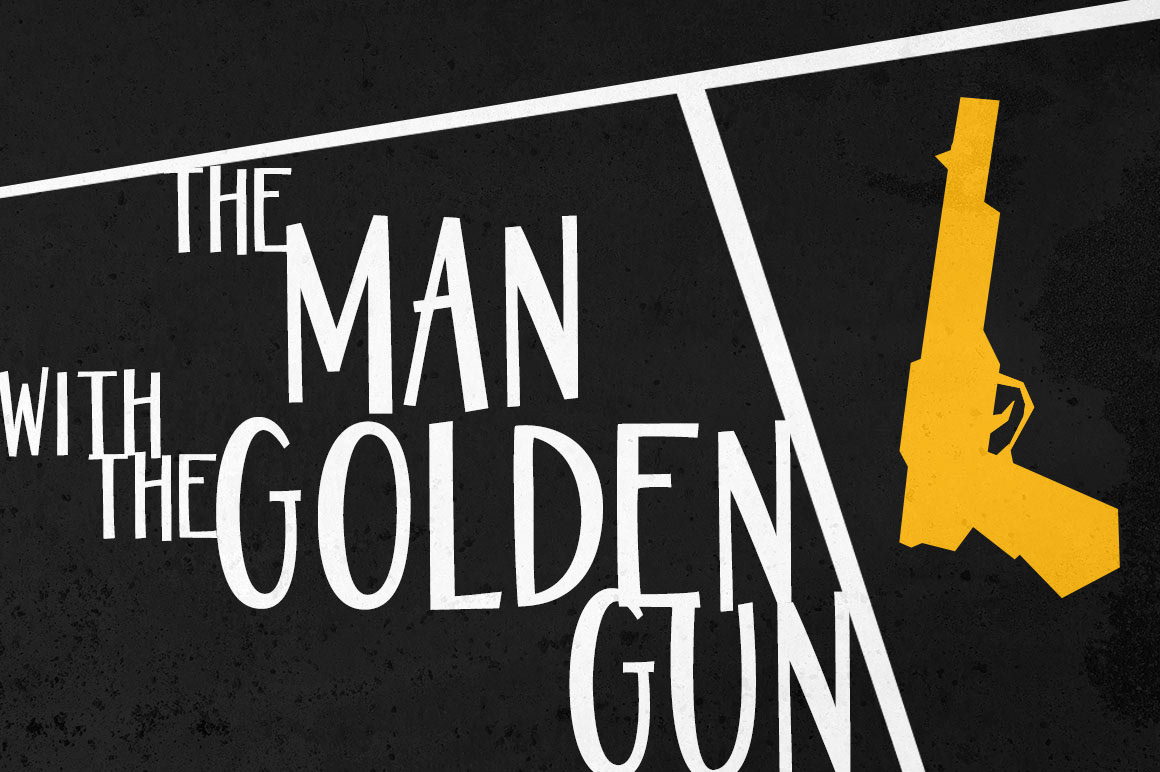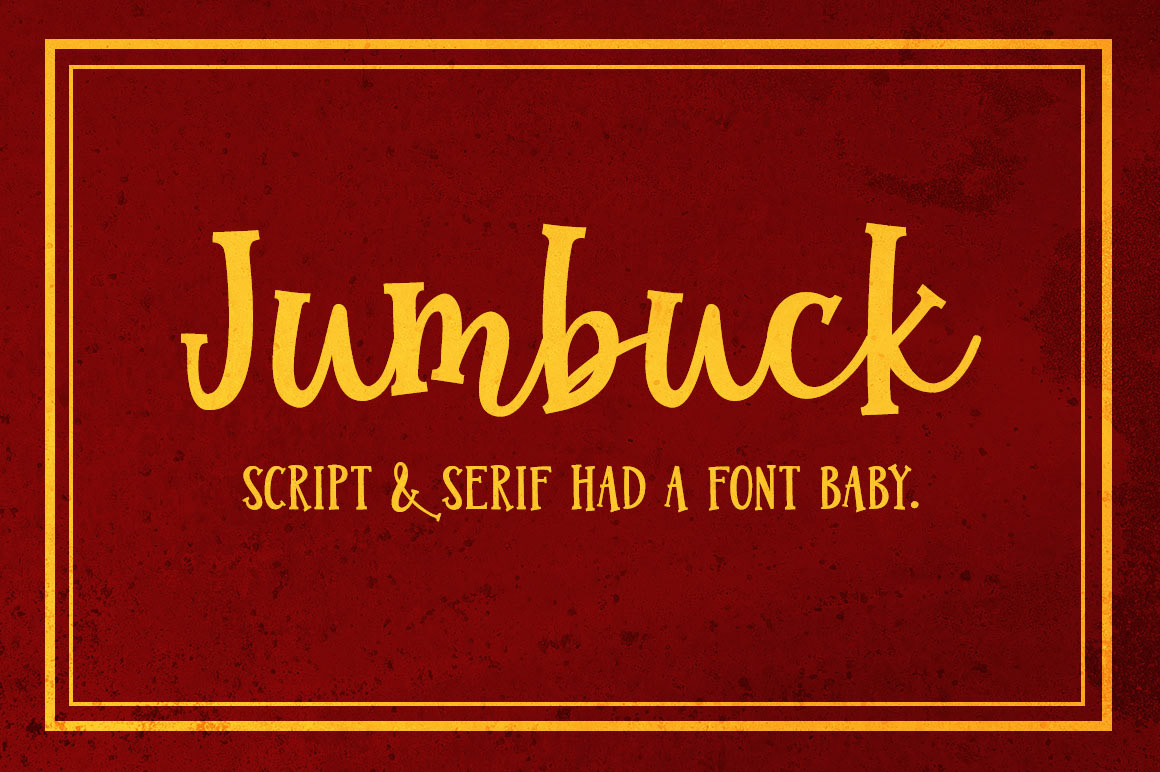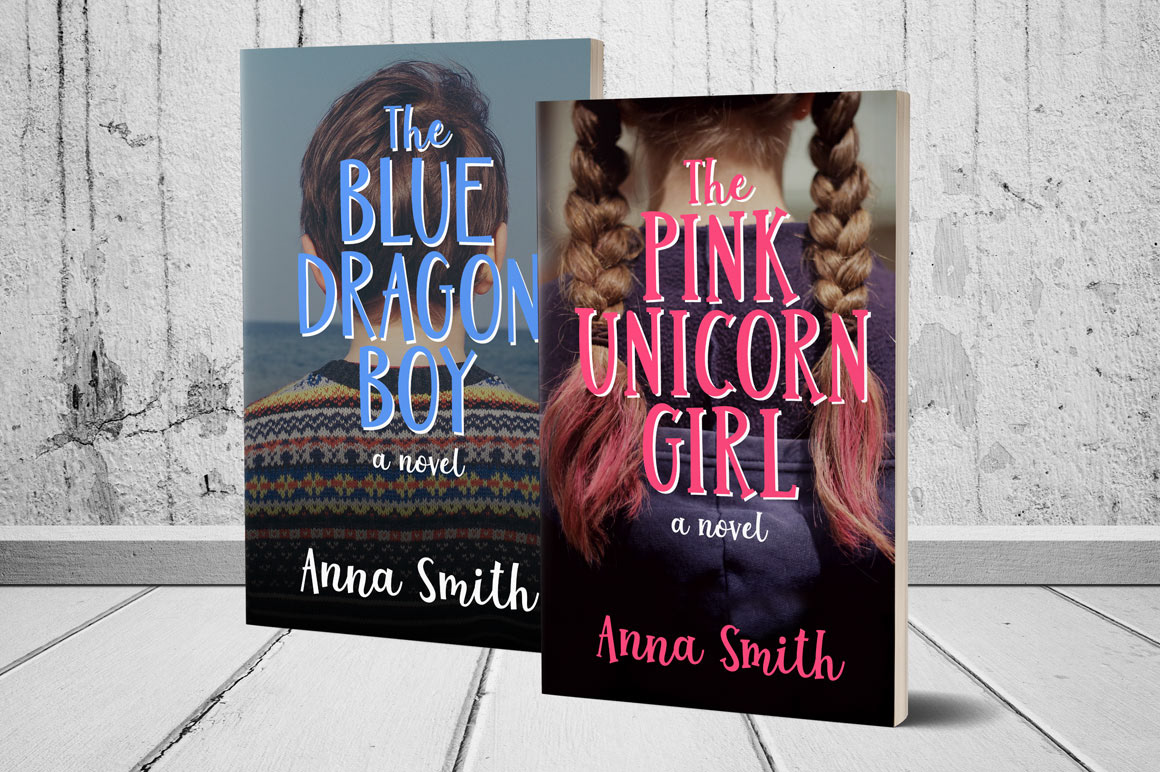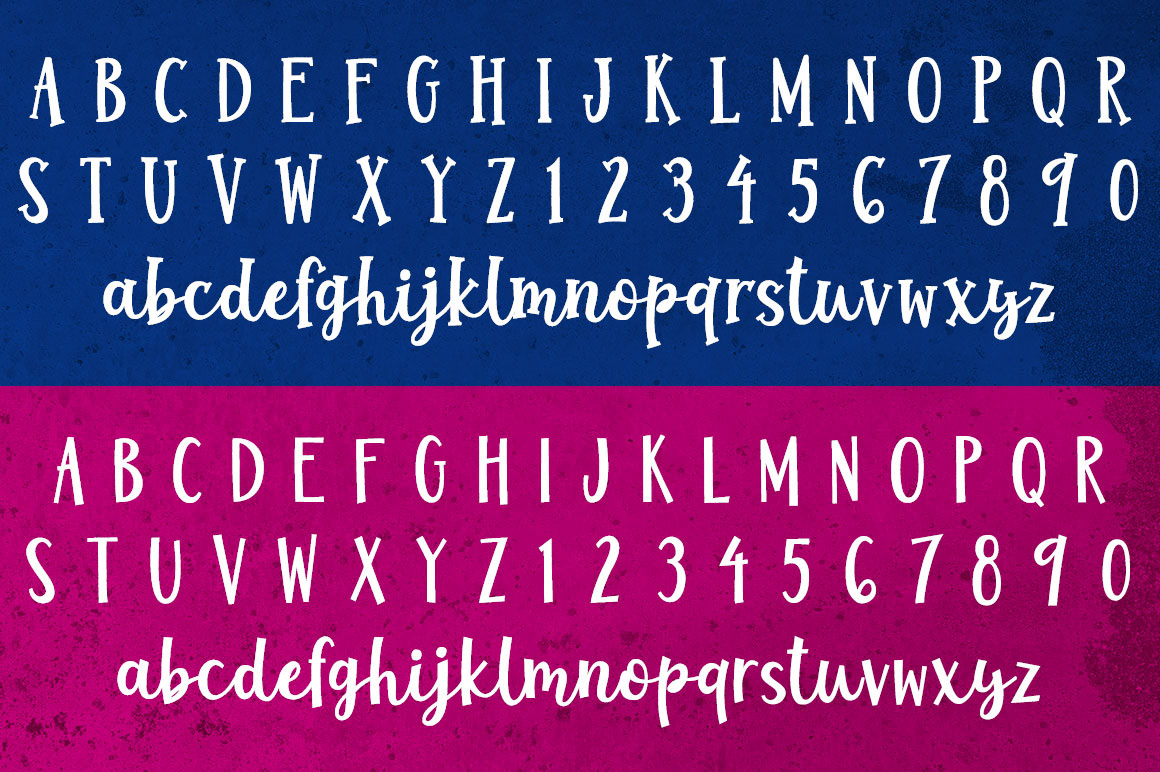
I’ve made script fonts, and I’ve made serif and sans-serif fonts, but for some reason I was inspired to combine them into script-serif and script-sans fonts! (Are those even categories? If not, they are now.) The end results: Jumbuck and Jumbuck Sans!
The Jumbuck fonts can be used for retro, modern, and hip products with ease! You can use the fonts any way you like: all-uppercase, all-lowercase, title case, or just jumble everything together!
As usual when it comes to my fonts, both Jumbucks come with over 200 accented characters to support most Latin-based languages. And as a bonus, I’ve also created 15 double-letter ligatures in both uppercase and lowercase, to add a little variety to your project!
– Uppercase A-Z, lowercase a-z, numbers, and punctuation for each
– Over 200 accented characters for language support for each
– 15 uppercase double-letter ligatures for each
– 15 lowercase double-letter ligatures for each